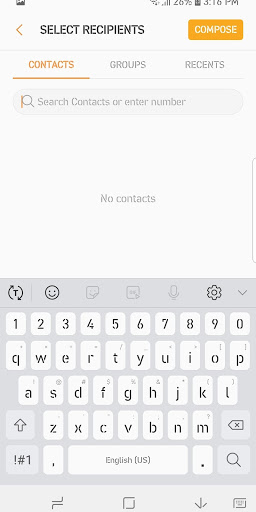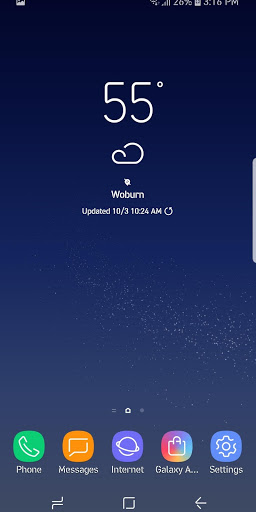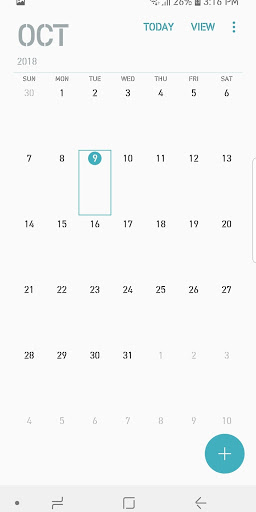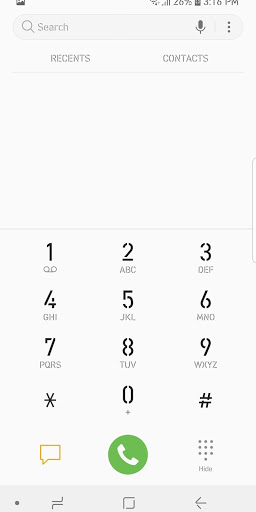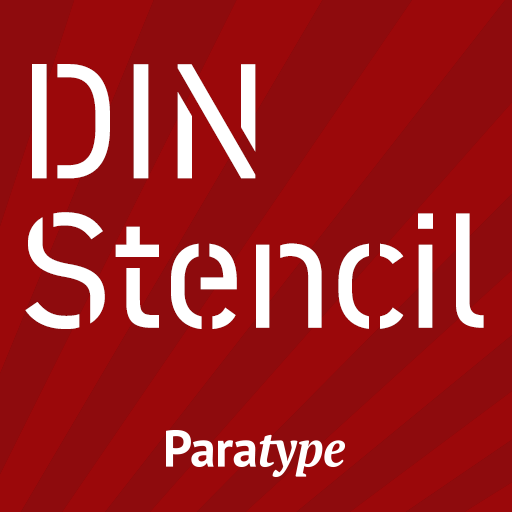
DIN 2014 Stencil Latin and Cyrillic FlipFont
Description of DIN 2014 Stencil Latin and Cyrillic FlipFont
DIN 2014 Stencil™ by Paratype has a modern, industrial look imitating printing with a stencil. This font will make you device really unique.
Pan-European and Cyrillic character set supports Western, Central and Eastern European as well as Belarusian, Bulgarian, Macedonian, Russian, Serbian and Ukrainian languages.